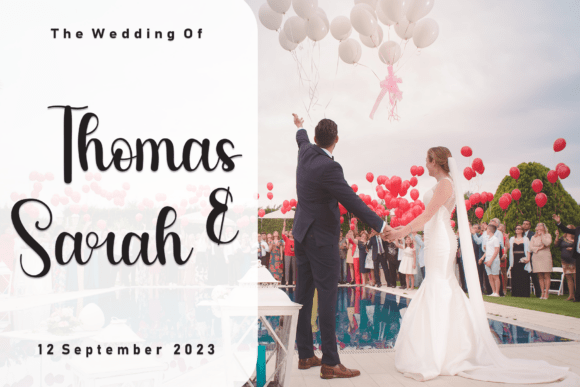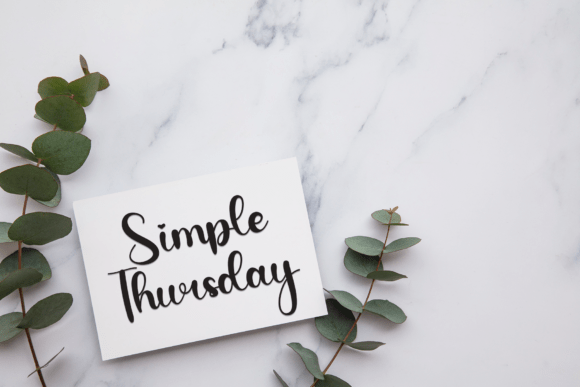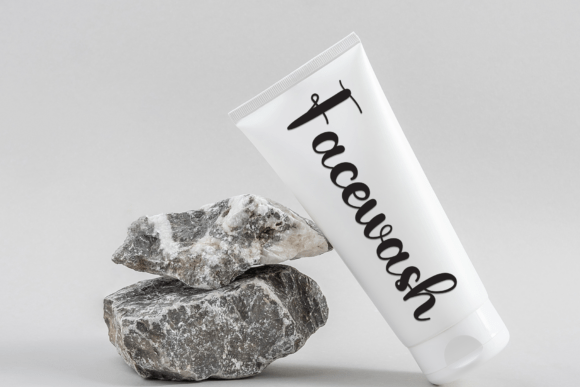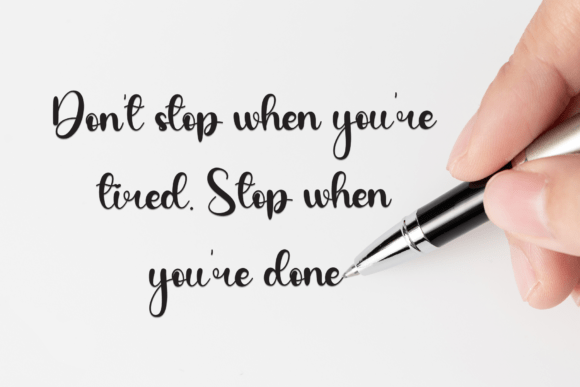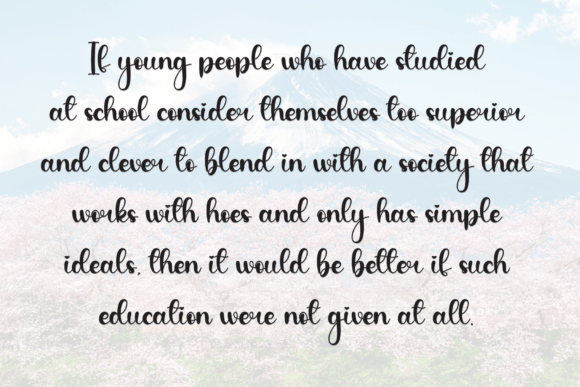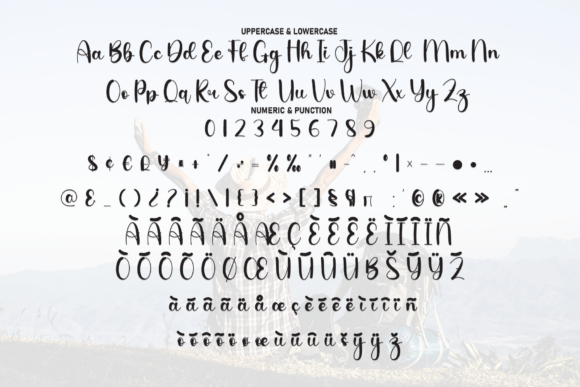
Introducing Delightful Font: Elevate Your Designs with Fresh Elegance
Are you searching for a font that embodies the essence of spring and injects a dose of sophistication into your designs? Look no further than Delightful, a stunning handwritten script font that exudes fresh elegance and delicate charm. With its flowing strokes and graceful curves, Delightful is the perfect choice for designers and crafters seeking to add a touch of refinement and whimsy to their projects.
The Beauty of Delightful Font
Delightful Font is a masterfully crafted typeface that radiates a sense of renewal and joy. Its elegant, cursive script is reminiscent of handwritten calligraphy, with each letter carefully designed to flow seamlessly into the next. The result is a beautiful, cohesive look that adds a soft, personal touch to any design. Whether you’re creating invitations, branding materials, or seasonal designs, Delightful Font is sure to delight.
Delightful Font’s versatility makes it an excellent choice for a wide range of design projects. Here are just a few ideas to get you started:
- Invitations: Add a touch of elegance to your wedding invitations, baby shower invites, or party announcements with Delightful Font.
- Branding: Use Delightful Font to create a unique and memorable brand identity for your business or product.
- Seasonal Designs: Delightful Font is perfect for creating festive and eye-catching designs for holidays like Easter, Mother’s Day, or Christmas.
- Stationery: Add a personal touch to your stationery, journals, or planners with Delightful Font.
Key Features of Delightful Font
So, what sets Delightful Font apart from other typefaces? Here are some of its key features:
- Handwritten script: Delightful Font features a beautiful, handwritten script that adds a personal touch to any design.
- Flowing strokes: The font’s flowing strokes and graceful curves create a sense of movement and elegance.
- Delicate charm: Delightful Font’s delicate charm makes it perfect for designs that require a touch of whimsy and sophistication.
- Easy to read: Despite its elegant appearance, Delightful Font is easy to read, making it perfect for body text and headlines.
Tips for Using Delightful Font
To get the most out of Delightful Font, here are some tips to keep in mind:
- Pair with contrasting fonts: Pair Delightful Font with a contrasting font to create visual interest and hierarchy in your design.
- Use for headlines and titles: Delightful Font is perfect for headlines and titles, where its elegant appearance can shine.
- Experiment with colors: Delightful Font looks beautiful in a variety of colors, so don’t be afraid to experiment and find the perfect hue for your design.
In conclusion, Delightful Font is a stunning handwritten script font that is sure to elevate your designs with its fresh elegance and delicate charm. With its flowing strokes, graceful curves, and whimsical appeal, Delightful Font is the perfect choice for designers and crafters seeking to add a touch of sophistication and whimsy to their projects. Whether you’re creating invitations, branding materials, or seasonal designs, Delightful Font is sure to delight.